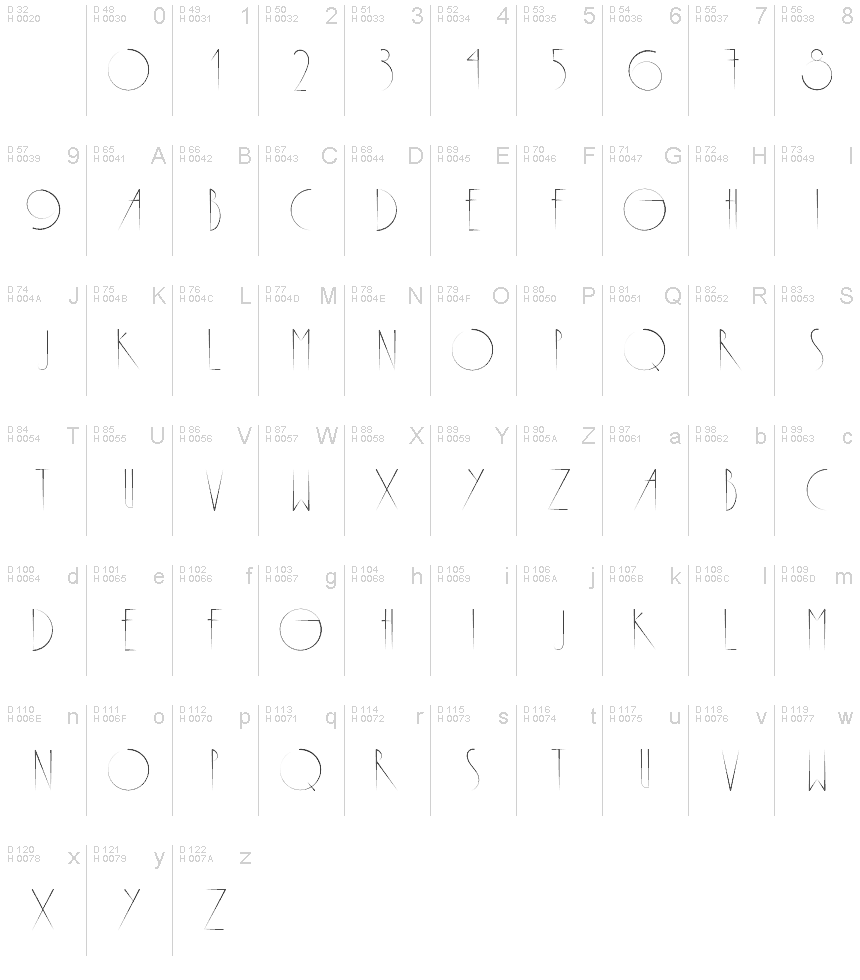
Metropolis, created by Manuel Ramos, is a free Art Deco-inspired retro display font whose exceptionally tall, narrow capitals combine precise hairline strokes, sharp diagonals, and sudden broad curves. The spare forms look elegant, angular, and distinctly architectural in profile.
Geometric illustration and period photography share a clear visual link with the elongated lettering, making it well suited to fashion posters, cocktail-bar menus, and exhibition graphics. For boutique hotels and fragrance packaging, it can shape a refined brand identity that recalls 1920s glamour through spare geometry and dramatic shifts in stroke width instead of ornate decoration or more literal period motifs.